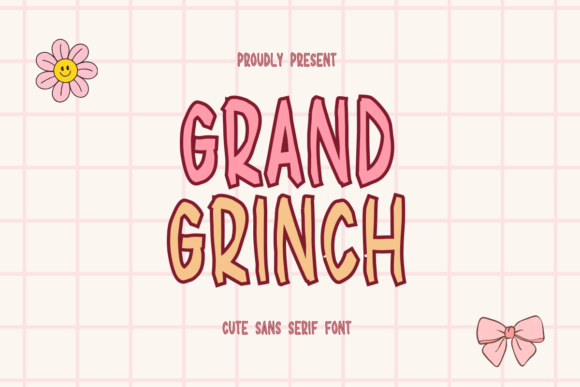
Introducing the Grand Grinch Font: A Cute and Versatile Sans-Serif Font
The Grand Grinch Font is a delightful and charming sans-serif font that has captured the hearts of designers and crafters alike. This adorable font is perfect for a wide range of creative projects, including Cricut designs, shirts, logos, retro designs, SVG files, and more. In this article, we’ll dive into the world of the Grand Grinch Font, exploring its features, uses, and benefits.
What is the Grand Grinch Font?
The Grand Grinch Font is a cute and stiff sans-serif font, designed to bring a touch of whimsy and fun to your designs. Its clean lines, simple shapes, and playful feel make it an excellent choice for a variety of projects. Whether you’re a seasoned designer or a DIY enthusiast, this font is sure to inspire your creativity.
Features of the Grand Grinch Font
- Cute and playful design: The Grand Grinch Font boasts a charming and endearing design that’s perfect for creating fun and engaging content.
- Stiff sans-serif style: This font features a clean and crisp sans-serif style, making it highly legible and versatile.
- Perfect for Cricut designs: The Grand Grinch Font is optimized for use with Cricut cutting machines, making it a great choice for crafters and makers.
- Suitable for shirts and apparel: This font is ideal for designing custom shirts, hoodies, and other apparel.
- Great for logos and branding: The Grand Grinch Font can be used to create unique and memorable logos, perfect for businesses, products, or services.
- Retro design vibes: This font’s playful and nostalgic feel makes it perfect for retro-inspired designs and projects.
Uses of the Grand Grinch Font
The Grand Grinch Font is an incredibly versatile font that can be used in a wide range of creative projects. Here are some ideas to get you started:
- Cricut designs: Use the Grand Grinch Font to create custom vinyl decals, iron-on designs, and other Cricut projects.
- Shirts and apparel: Design custom shirts, hoodies, and other apparel using this font.
- Logos and branding: Create unique and memorable logos using the Grand Grinch Font.
- Retro designs: Use this font to create retro-inspired posters, flyers, and other design materials.
- Signs and banners: This font is perfect for creating eye-catching signs and banners for parties, events, or businesses.
Benefits of Using the Grand Grinch Font
The Grand Grinch Font offers a range of benefits that make it an excellent choice for designers and crafters. Here are some of the advantages of using this font:
- Easy to read: The Grand Grinch Font is highly legible, making it perfect for designs that require clear and easy-to-read text.
- Versatile: This font can be used in a wide range of creative projects, from Cricut designs to logos and branding.
- Cute and playful: The Grand Grinch Font adds a touch of whimsy and fun to your designs, making them more engaging and memorable.
Tips for Using the Grand Grinch Font
Here are some tips to help you get the most out of the Grand Grinch Font:
- Experiment with different colors: Try pairing the Grand Grinch Font with different colors to create unique and eye-catching designs.
- Mix and match with other fonts: Combine the Grand Grinch Font with other fonts to create interesting and dynamic designs.
- Use it for headings and titles: The Grand Grinch Font is perfect for headings and titles, adding a touch of personality to your designs.
- Don’t be afraid to get creative: The Grand Grinch Font is a versatile font that can be used in many different ways, so don’t be afraid to experiment and try new things.
The Grand Grinch Font is a delightful and versatile sans-serif font that’s perfect for a wide range of creative projects. Its cute and playful design, combined with its stiff and clean lines, make it an excellent choice for Cricut designs, shirts, logos, retro designs, SVG files, and more. With its ease of use, compatibility with various design software, and range of benefits, the Grand Grinch Font is sure to become a favorite among designers and crafters.